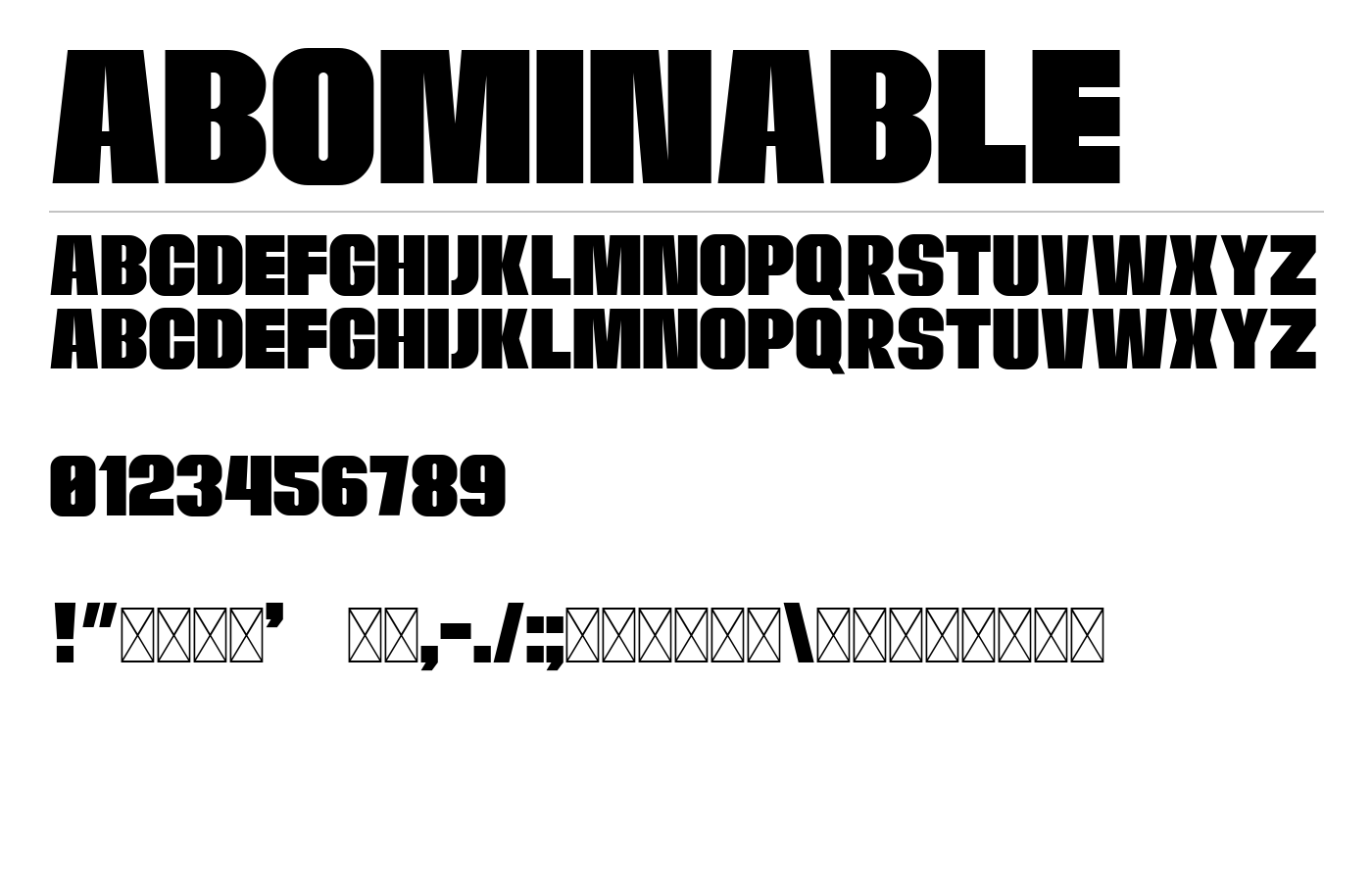
Abominable is a bold, condensed sans serif font with a strong, impactful presence. Its thick strokes, high x-height, and tight spacing create a powerful, modern feel ideal for headlines, posters, and branding that demands attention. This font works well for designs that need to convey strength and confidence with a sleek, contemporary edge.
Abominable Font
About Abominable Font
| Font family | Abominable Font |
| Designer | Cristian Bogdan Rosu |